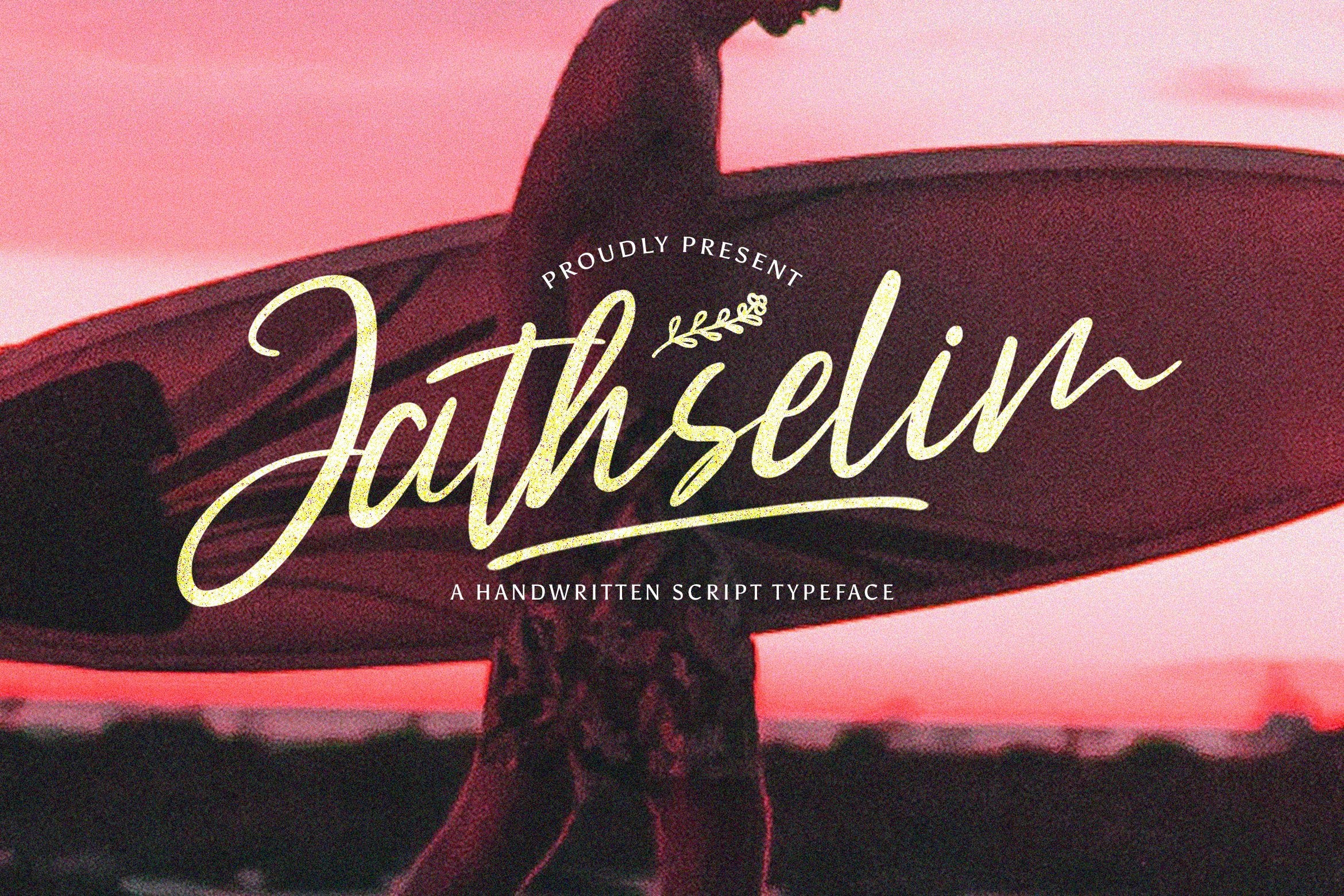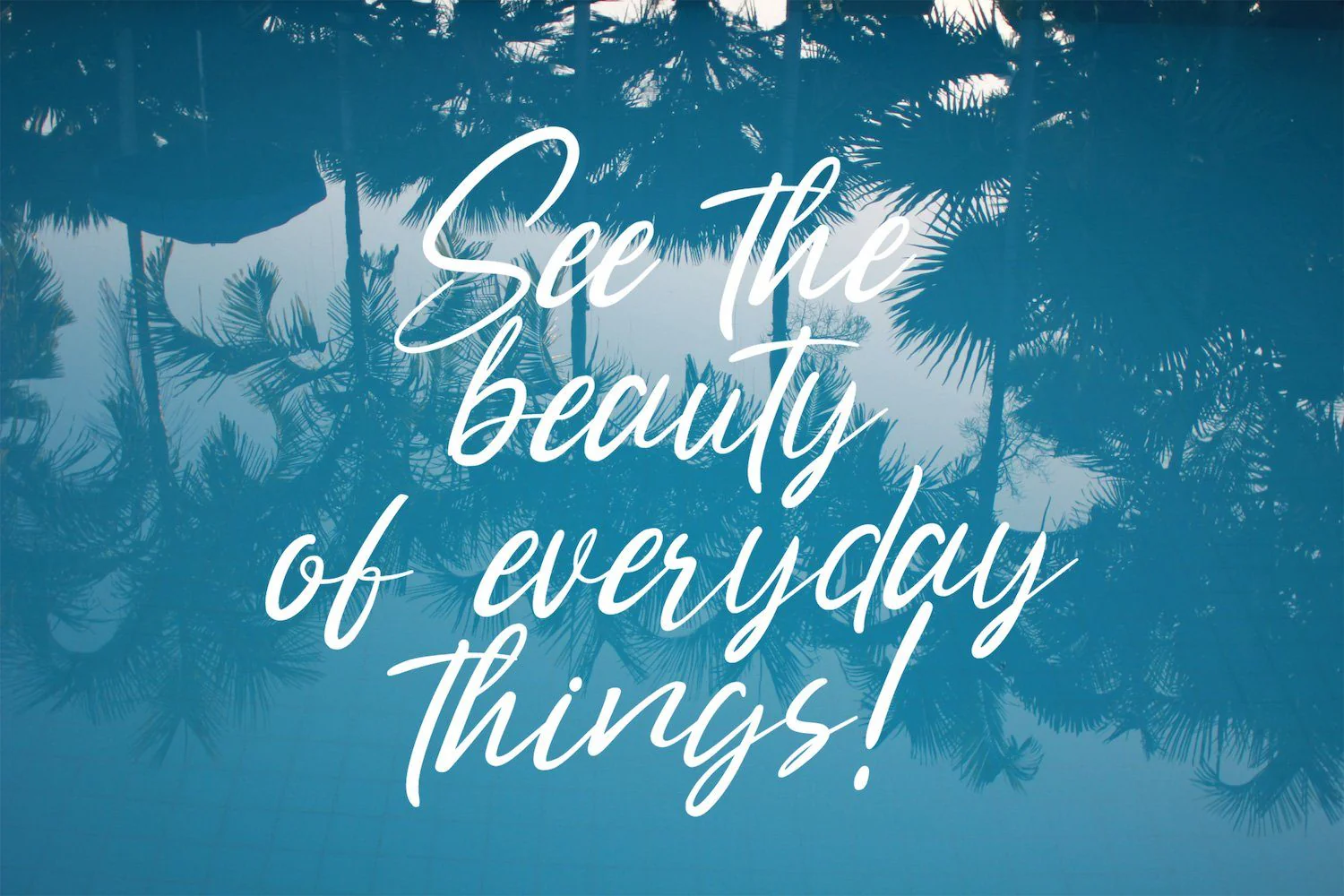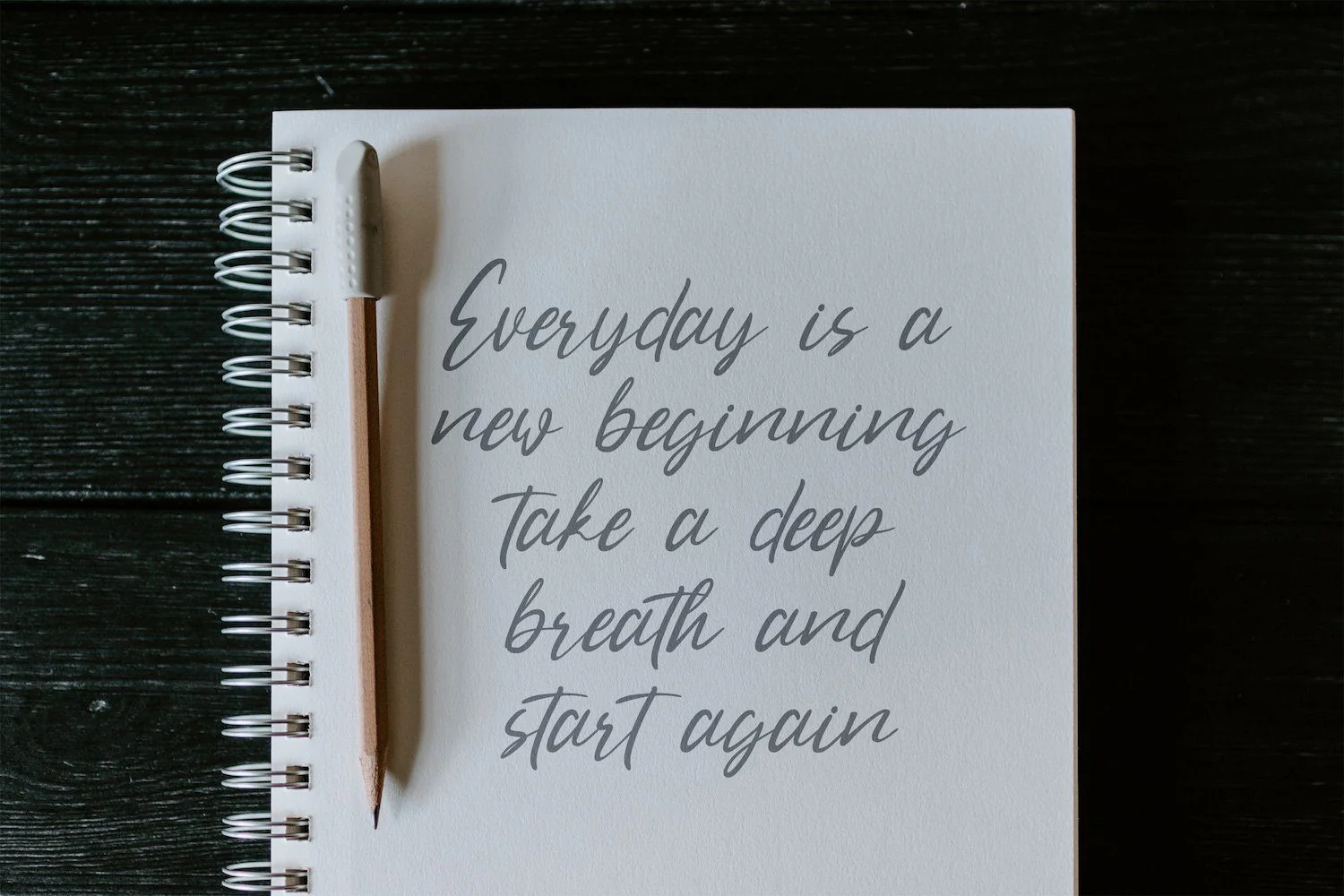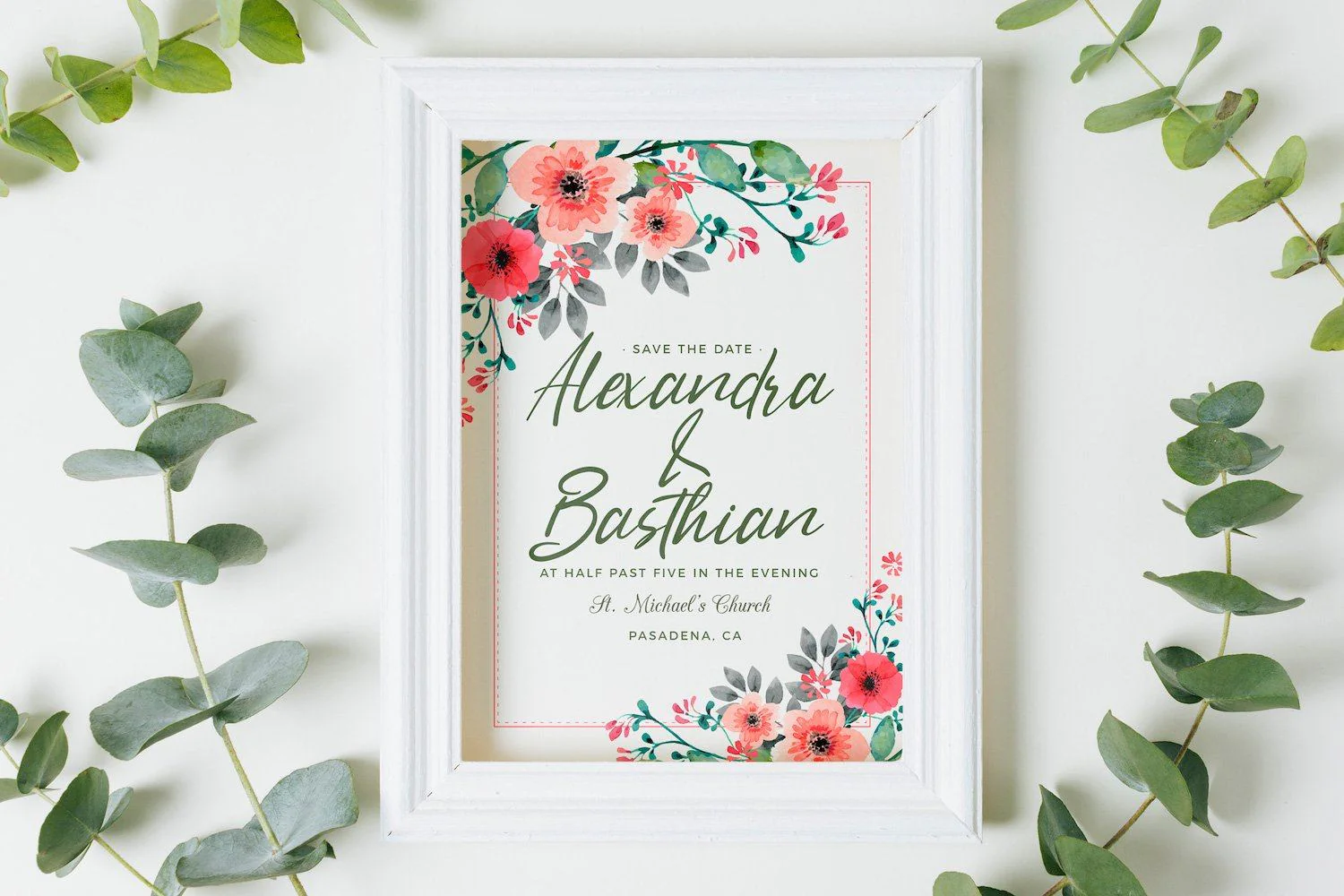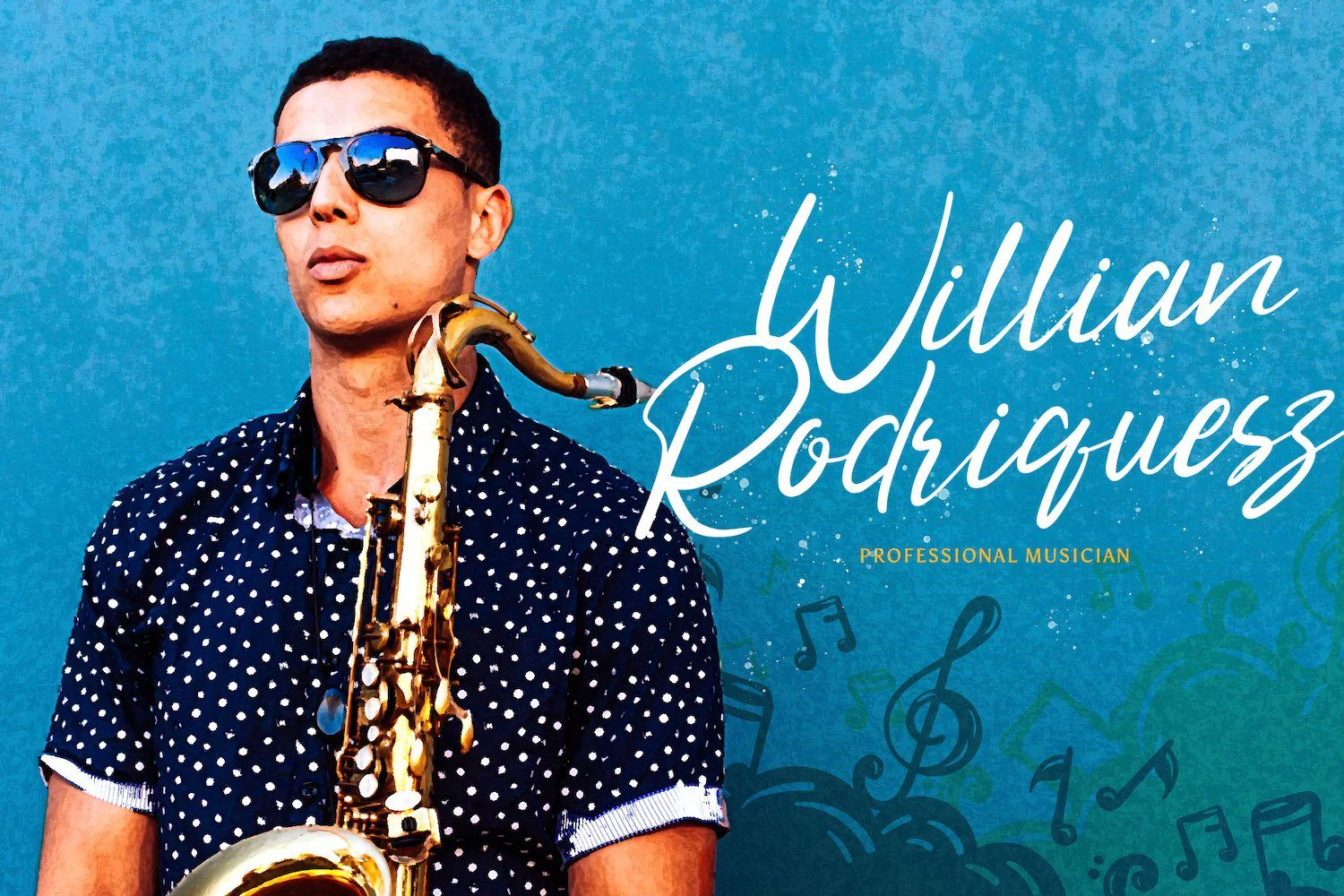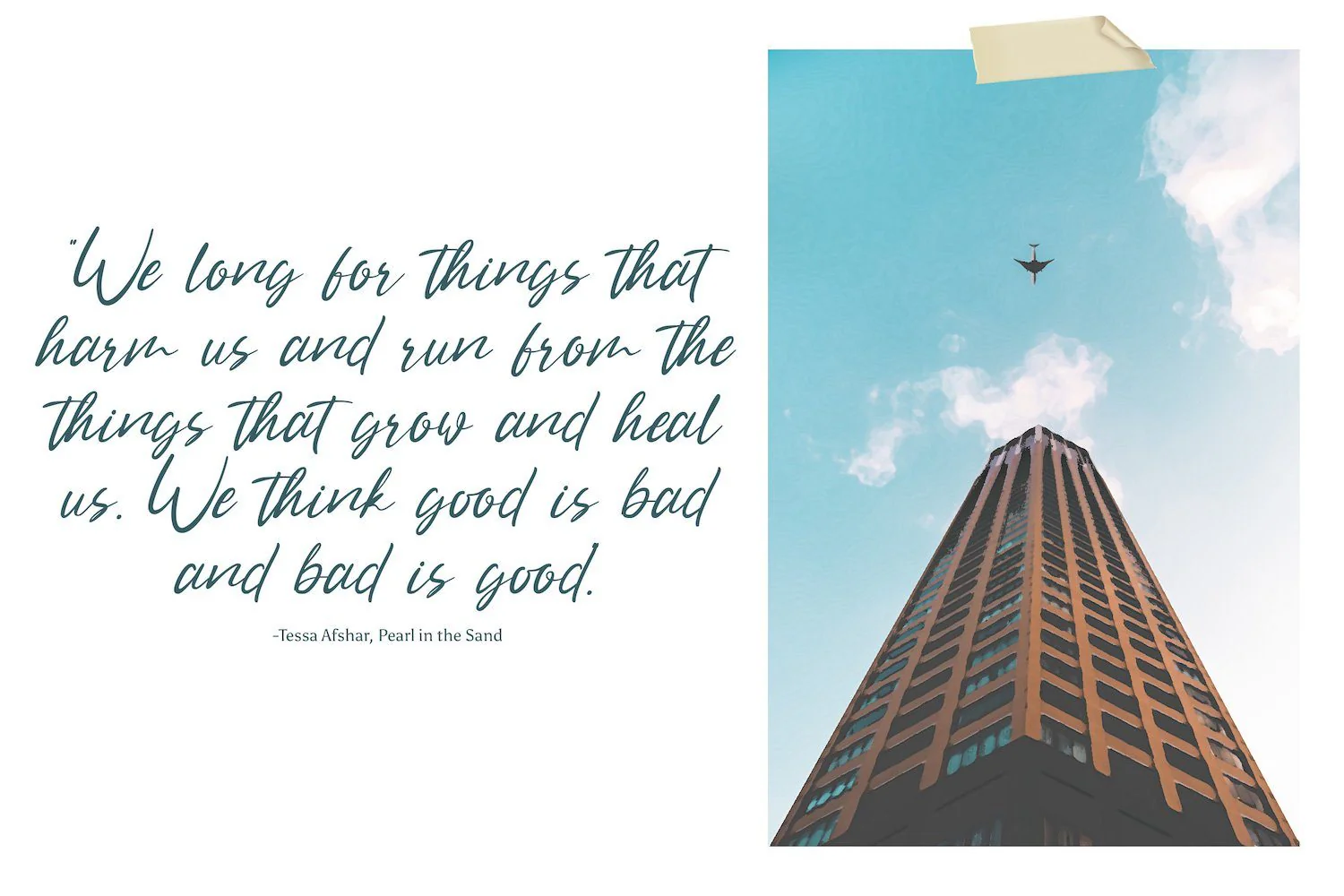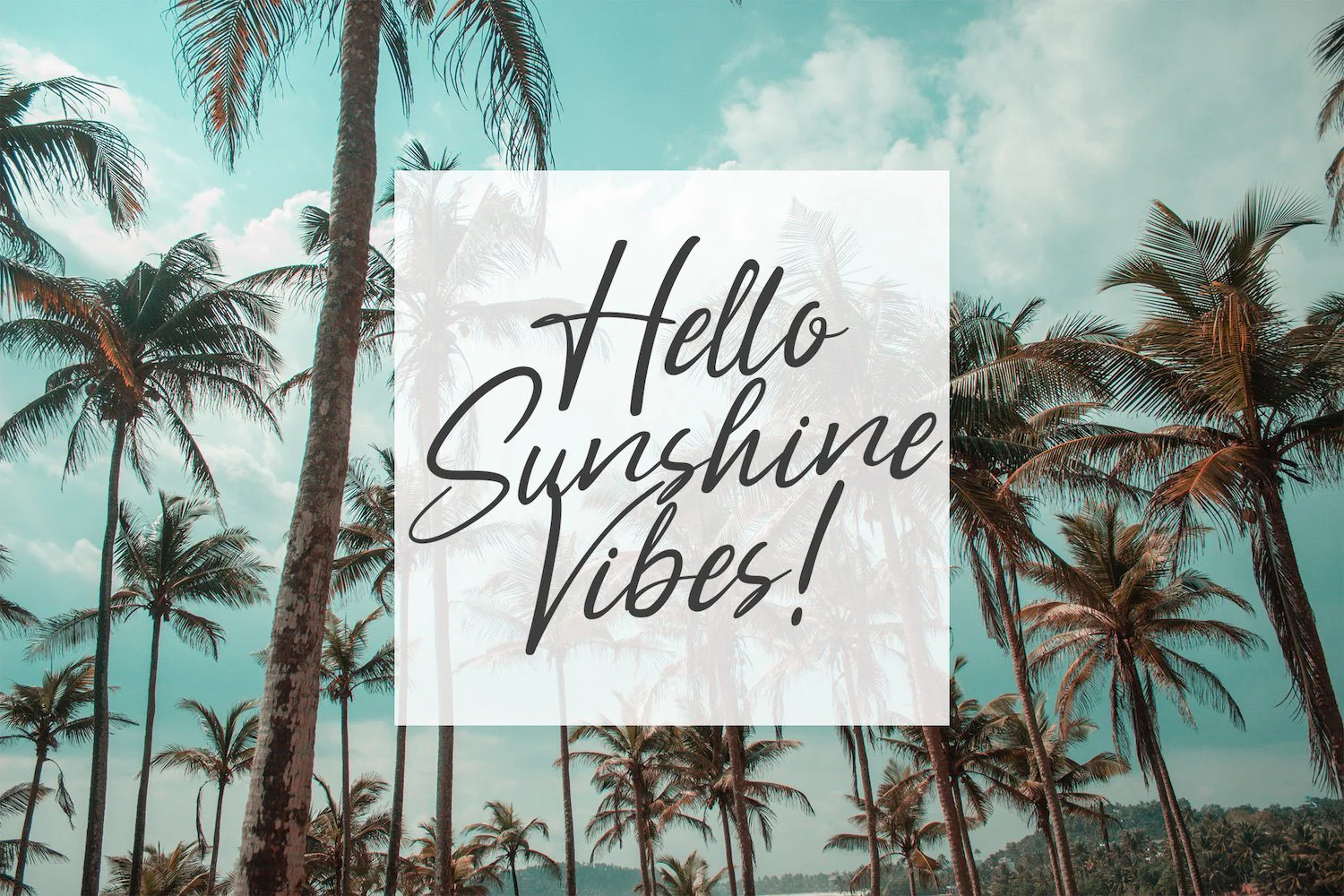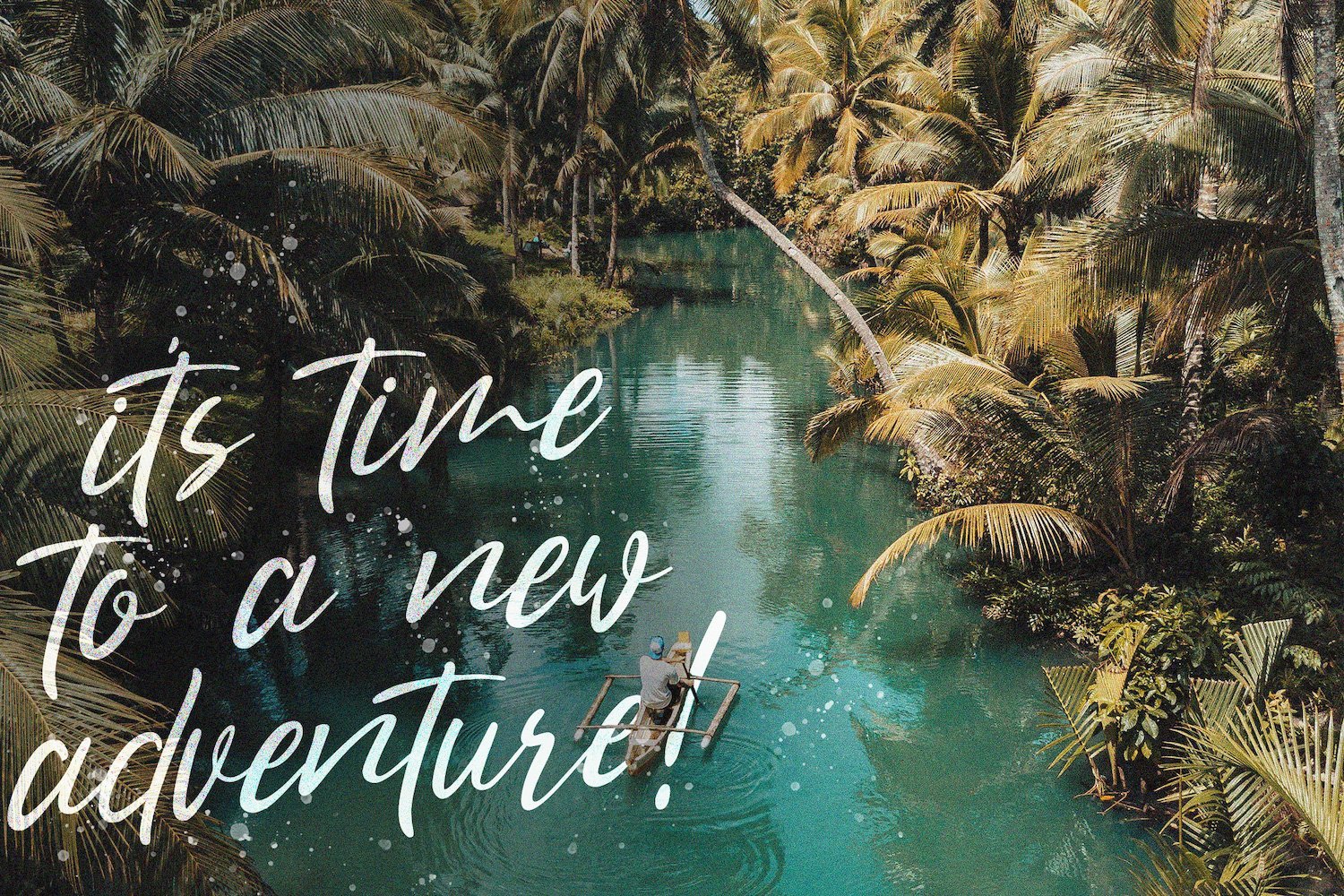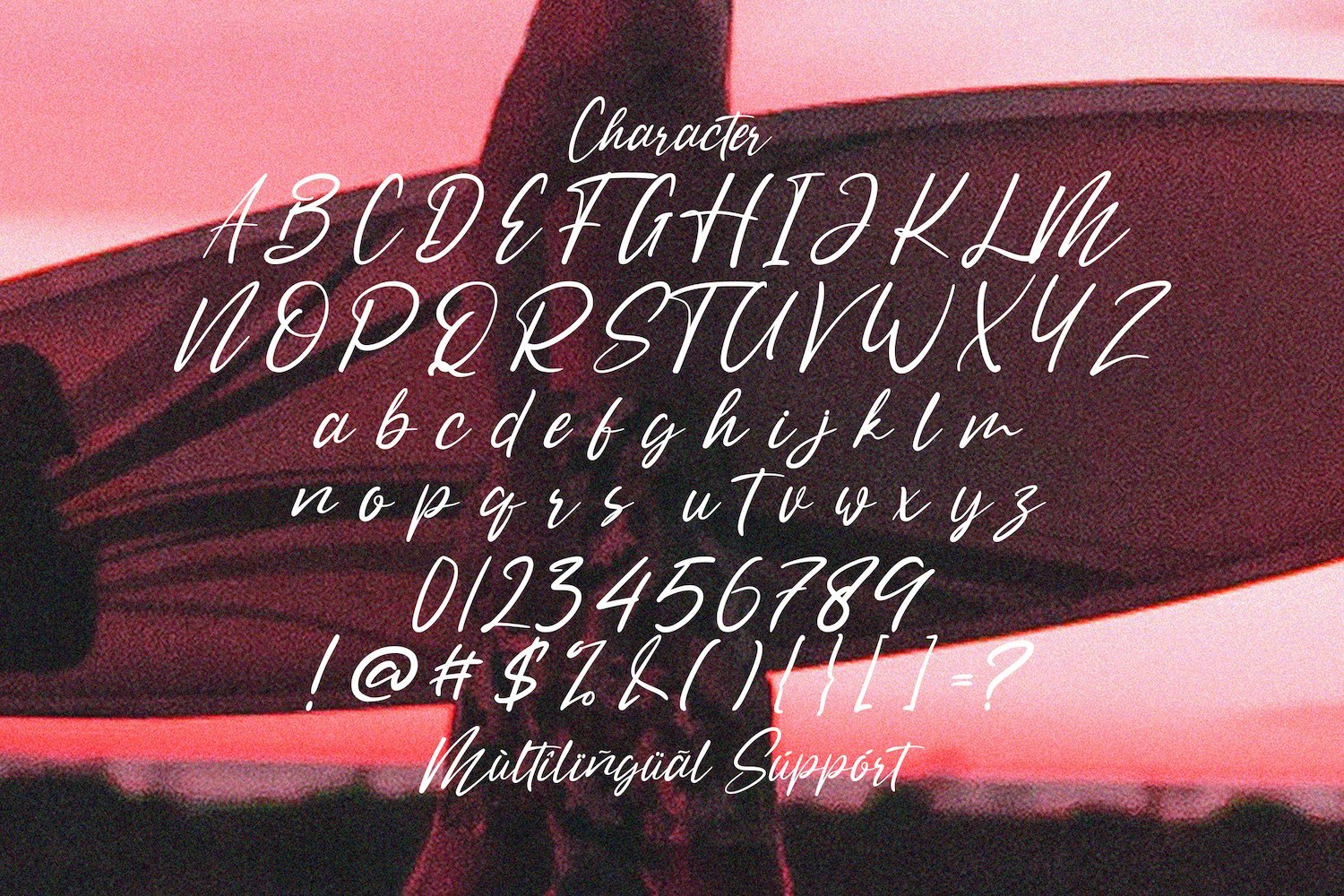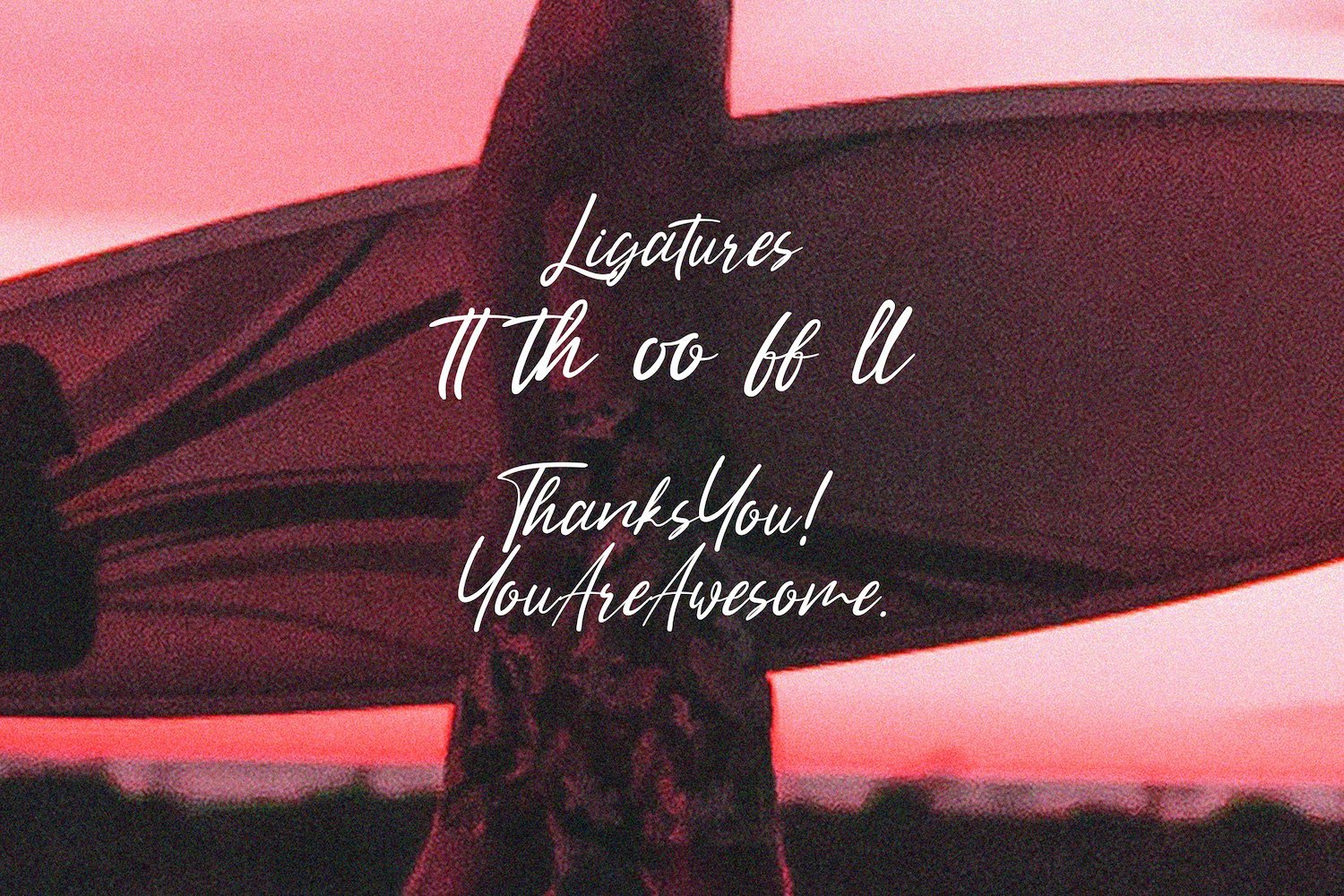
Jathselim - Handwritten Font
Introducing Jathselim - Handwritten Font
Jathselim is a delicate, elegant and flowing handwritten font. It has beautiful and well balanced characters and as a result, it matches a wide pool of designs. Add it to your most creative ideas and notice how it makes them come alive!